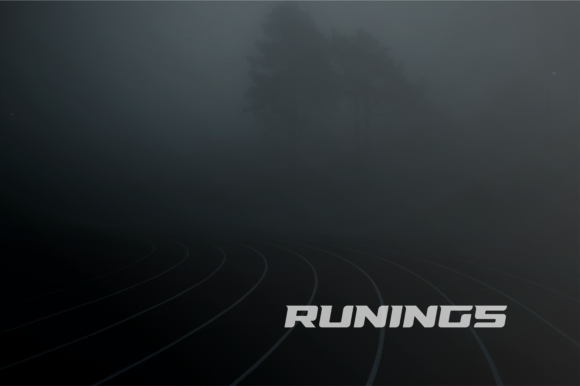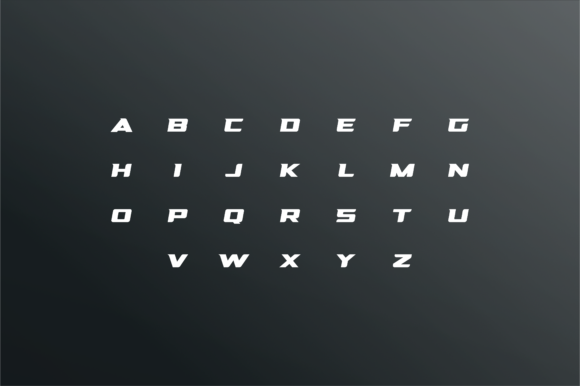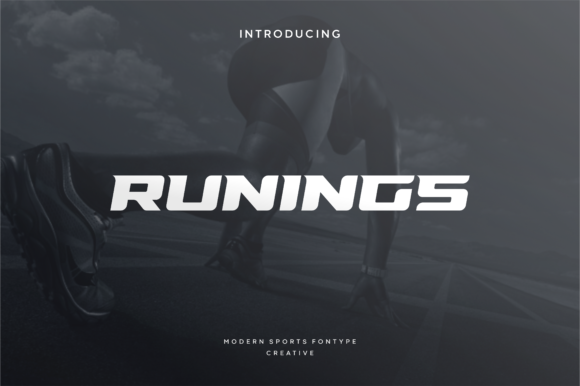
Introduction to Runings Font
Runings is a bold and thick lettered display font.
It works best on the sporting or racing designs that require a strong touch Runnings have a distinct appeal that manages to effortlessly combine the formal look with a more playful one.